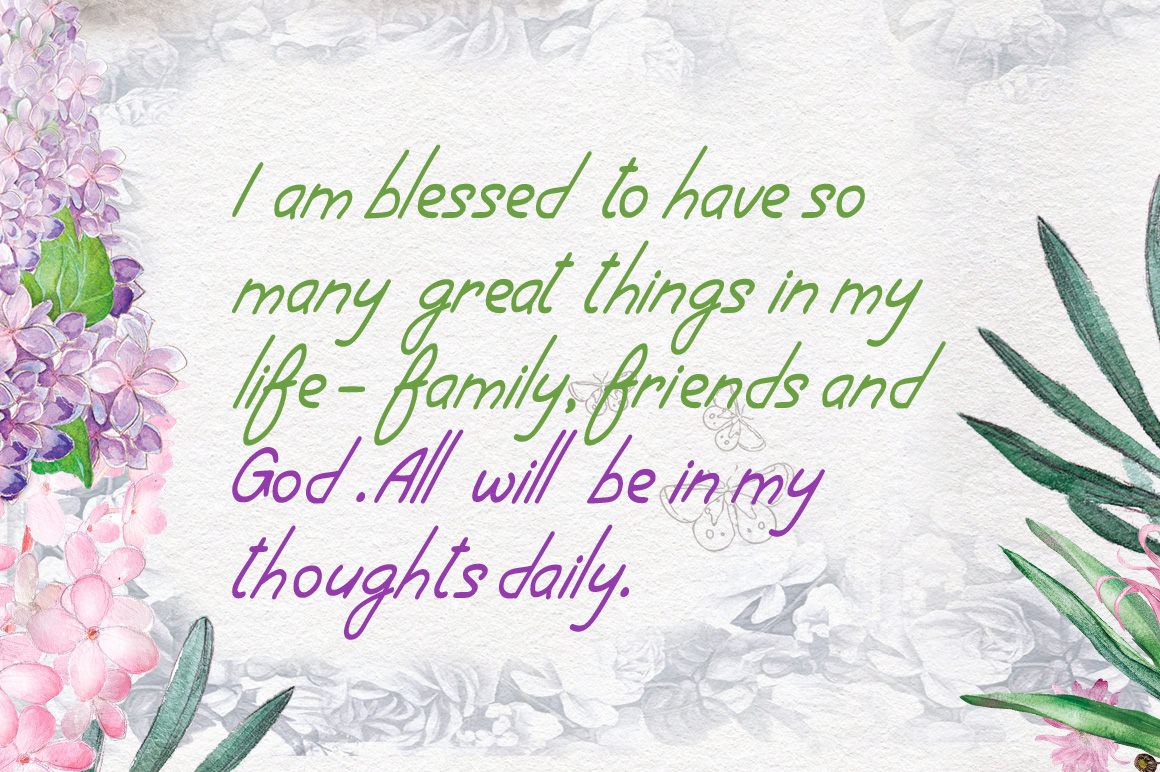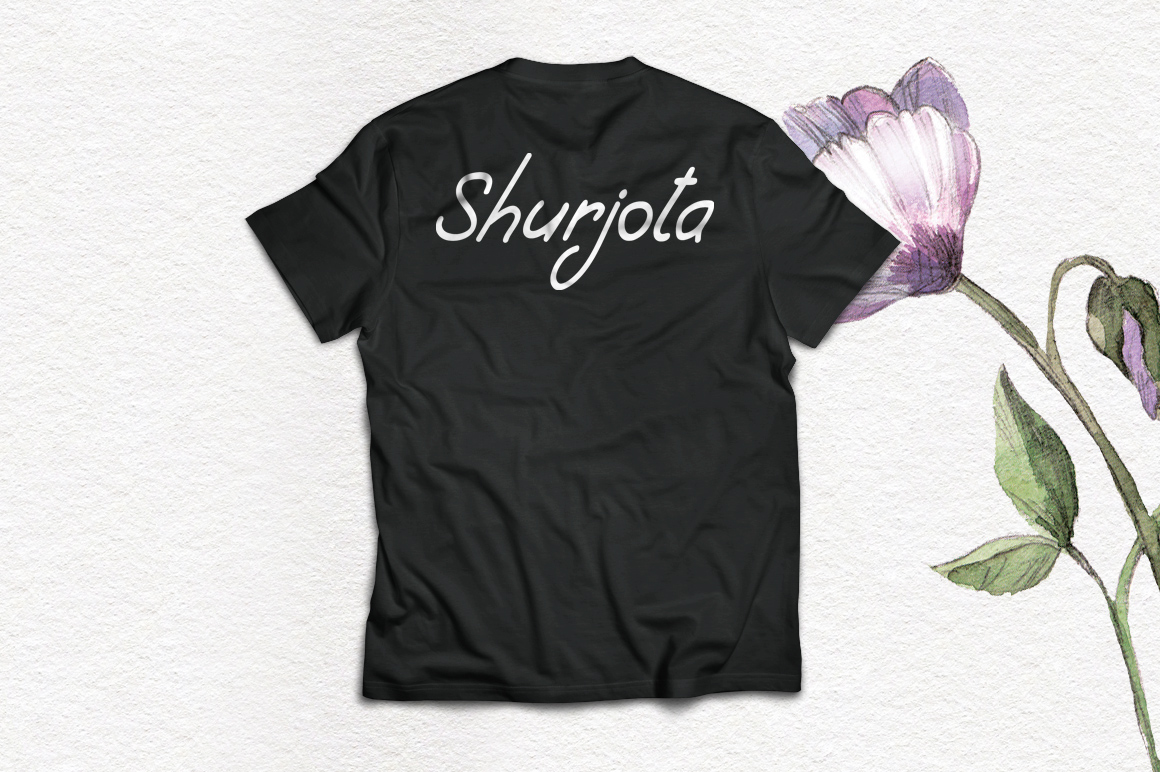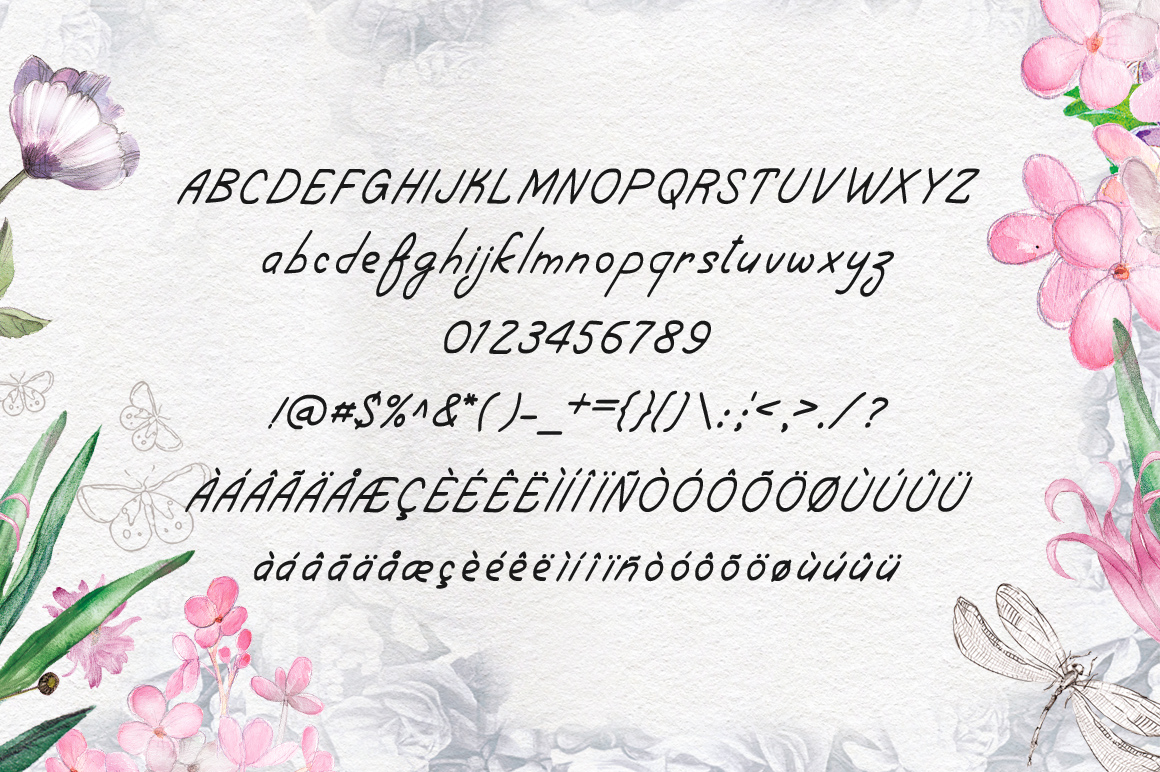
Shurjota Font
About Shurjota Font
Shurjota is a stunning handwritten font. The beauty is in its simplicity.
It’s clean & modern, which makes it the perfect font for many different types of projects.